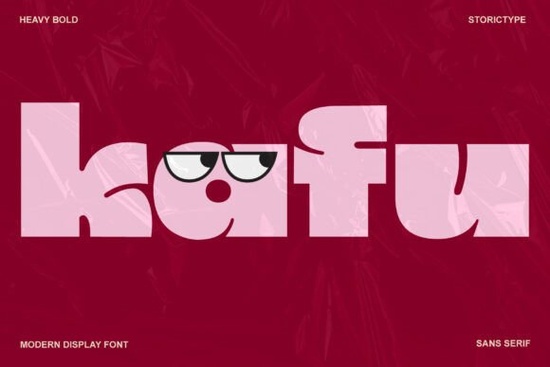
If you're looking for a font that can make a bold and modern statement, Kafu Font is an excellent choice. This high-contrast, geometrically precise display font is perfect for adding a sophisticated edge to your creative projects.
Why Choose Kafu Font for Your Design Projects?
Kafu Font stands out with its heavy, bold style and contemporary architectural inspiration. It's designed to bring elegance and impact to any project, whether it's high-fashion branding, editorial layouts, or social media graphics. The font's clean lines and geometric precision make it versatile and eye-catching.
Perfect for High-Fashion Branding
High-fashion brands often need fonts that are both elegant and impactful. Kafu Font fits this bill perfectly. Its bold and modern design can help your brand stand out in a crowded market. Whether you're designing a logo, a tagline, or a full campaign, Kafu Font can add the sophistication and edge you need.
Enhance Editorial Layouts
When it comes to editorial design, the right font can make all the difference. Kafu Font's high-contrast and modern style can be used for headlines, subheadings, and other key elements in your layout. This font can help draw attention to important sections of your publication, making it more engaging and visually appealing.
Create Modern Poster Designs
Posters need to be visually striking and easy to read from a distance. Kafu Font's bold and geometric design makes it ideal for creating modern and eye-catching posters. Whether you're promoting an event, advertising a product, or just creating a decorative piece, Kafu Font can help your message stand out.
Captivate on Social Media
In the world of social media, first impressions matter. Kafu Font can help you create captivating graphics that grab attention and engage your audience. Use it for quotes, announcements, or promotional posts to add a touch of sophistication and modernity to your content.
How Does Kafu Font Compare to Other Display Fonts?
While Kafu Font is unique in its design, it's worth comparing it to other popular display fonts to see how it stacks up. For example, Aaksaraan Nordhavn offers a similar modern and geometric feel, but with a slightly different character set. If you're looking for something with a bit more personality, Main Street Traffic might be a good alternative. For a sportier and more dynamic look, Sportex is a great option. And if you prefer a more classic and elegant style, Goodwin and Urban Blast are also excellent choices.
Tips for Using Kafu Font Effectively
- Balance with Other Fonts: Pair Kafu Font with simpler, more readable fonts for body text to create a balanced and harmonious design.
- Use for Key Elements: Utilize Kafu Font for headlines, titles, and other key elements where you want to make a strong visual impact.
- Experiment with Colors: Play with different color combinations to find what works best for your project. Kafu Font looks great in both vibrant and subtle colors.
- Test Readability: Make sure the font is still legible at the size and color you choose, especially for smaller text or when used in a busy design.
Next Steps for Designers and Creatives
Now that you know more about Kafu Font and how it can enhance your designs, here’s a quick checklist to help you get started:
- Brainstorm the types of projects where you can use Kafu Font, such as logos, posters, or social media graphics.
- Experiment with different color schemes and font pairings to see what works best for your project.
- Test the readability and visual impact of Kafu Font in your designs.
- Share your creations and get feedback from your audience or peers.
By following these steps, you can effectively incorporate Kafu Font into your creative projects and achieve the sophisticated, modern look you desire.